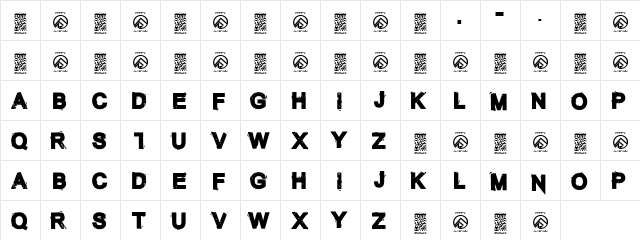
The Unknown Regular
Design Context for The Unknown Typeface
The Unknown is a composed and adaptable typeface that performs quietly and consistently across a wide range of design contexts.